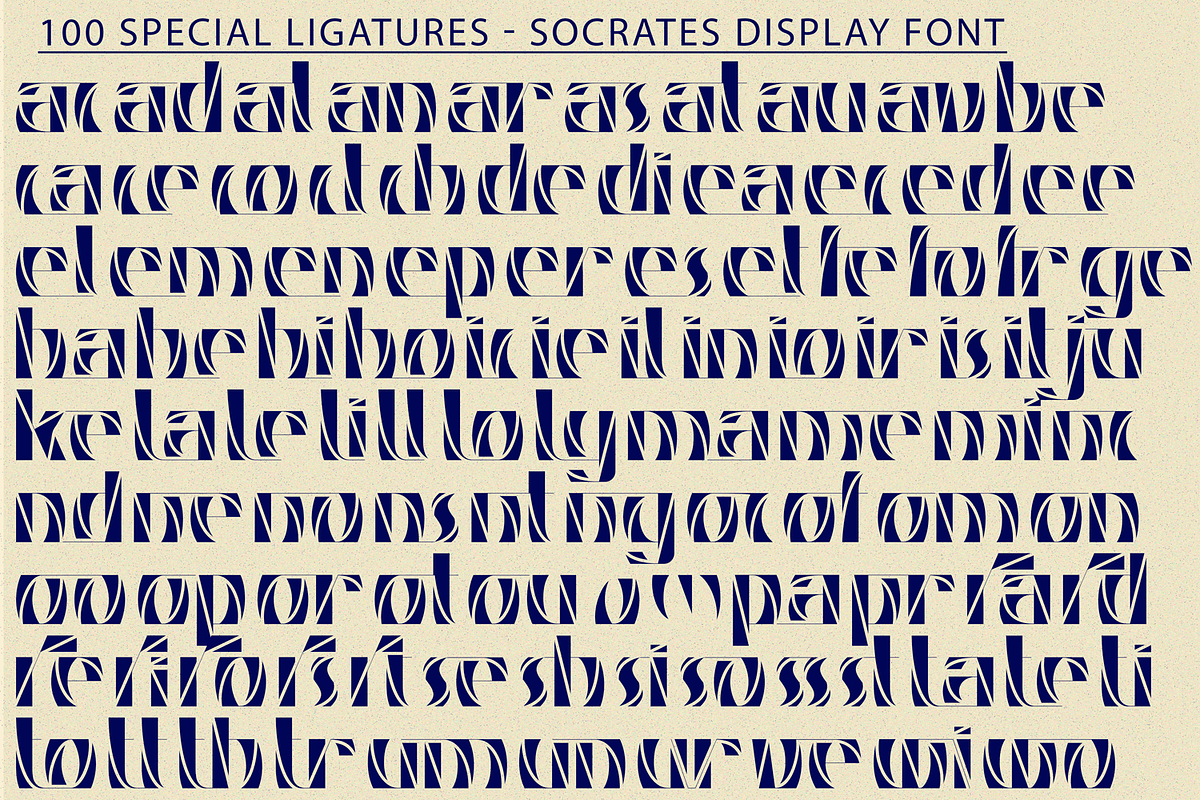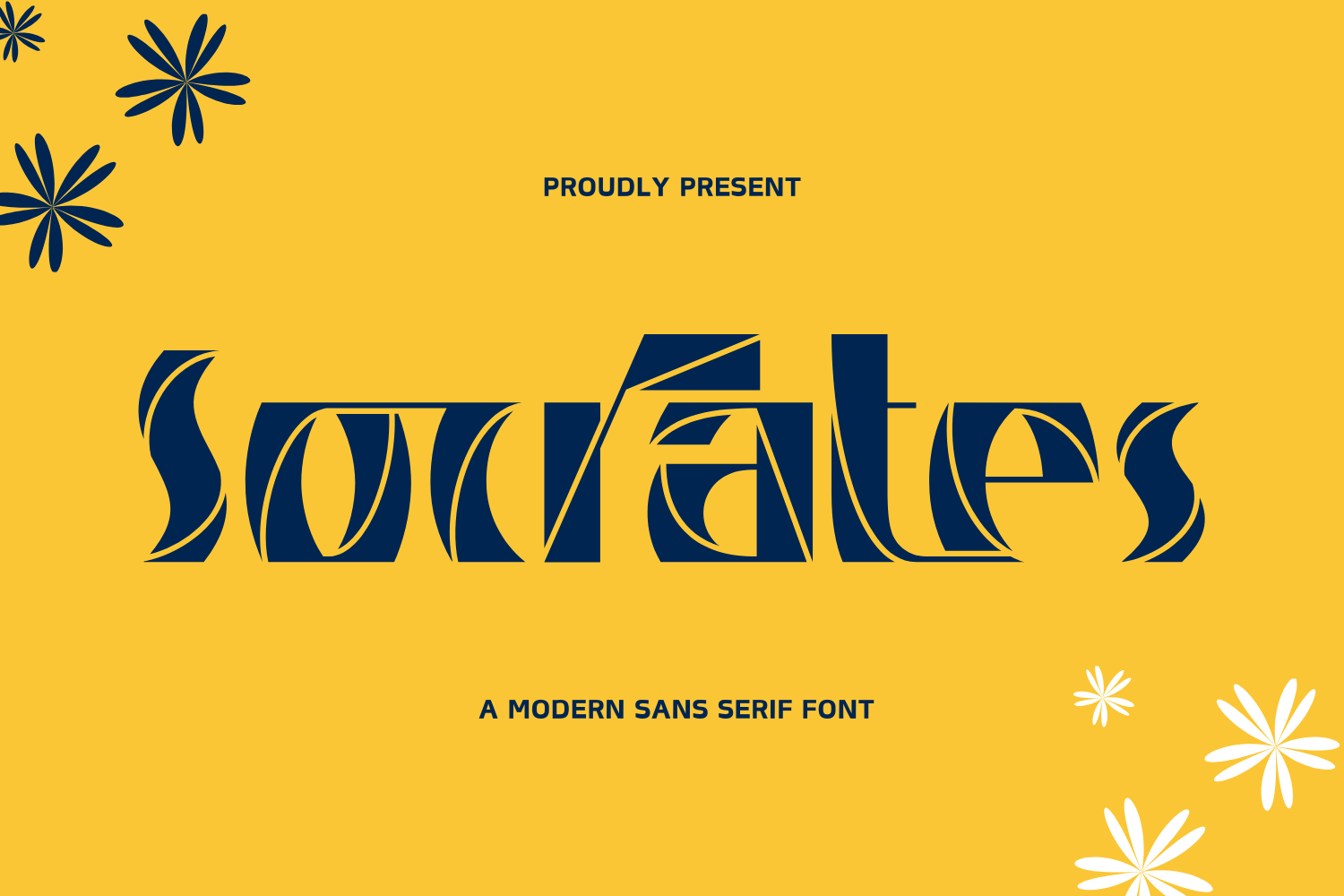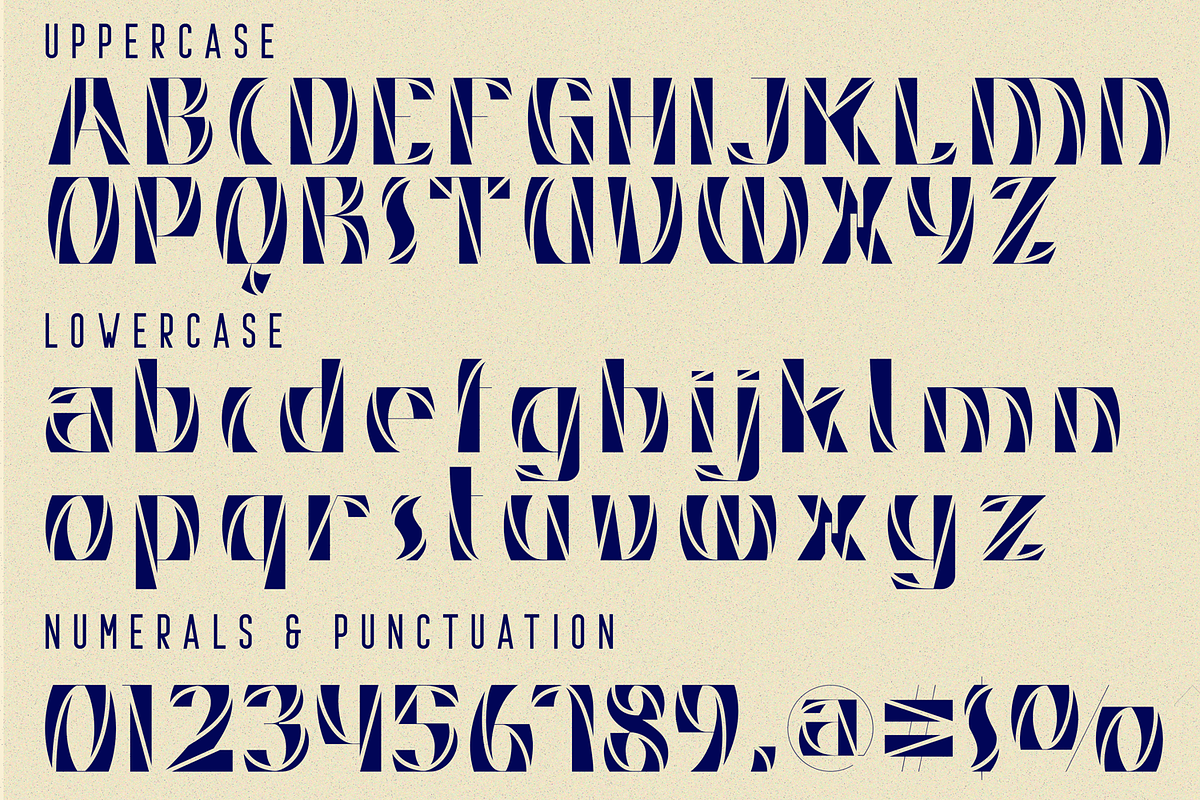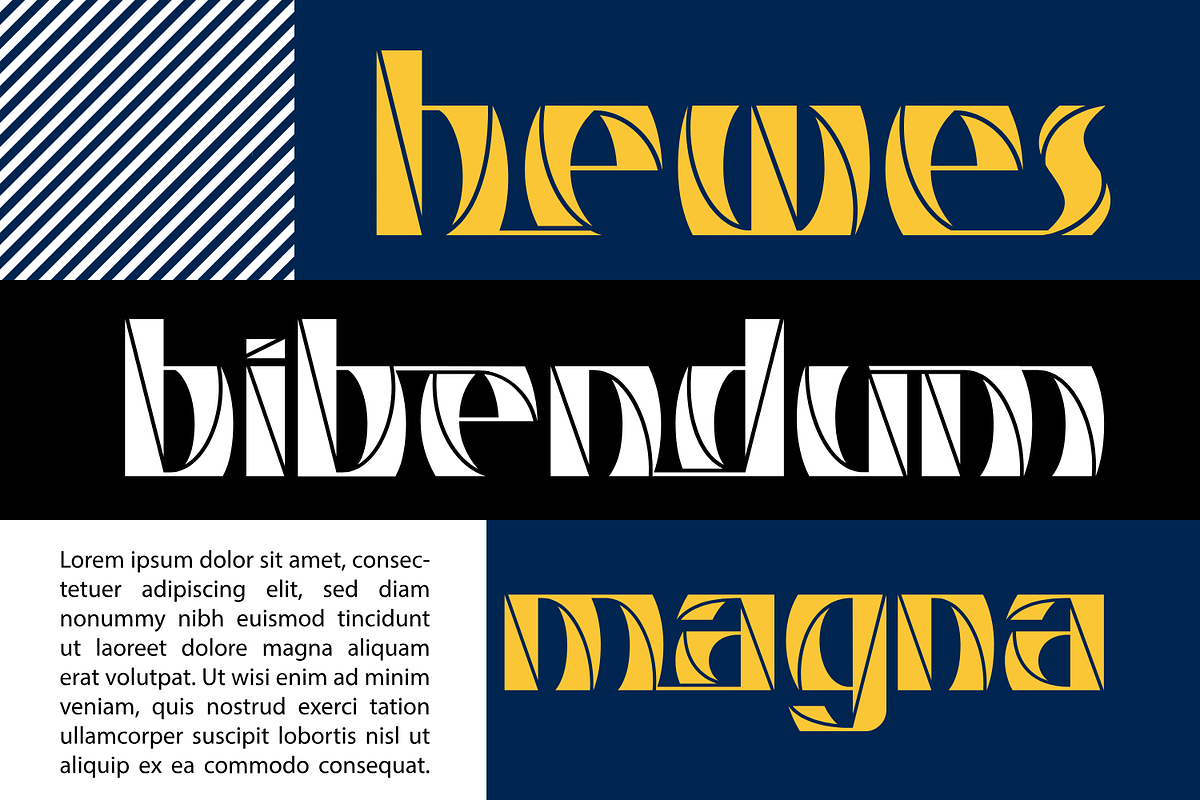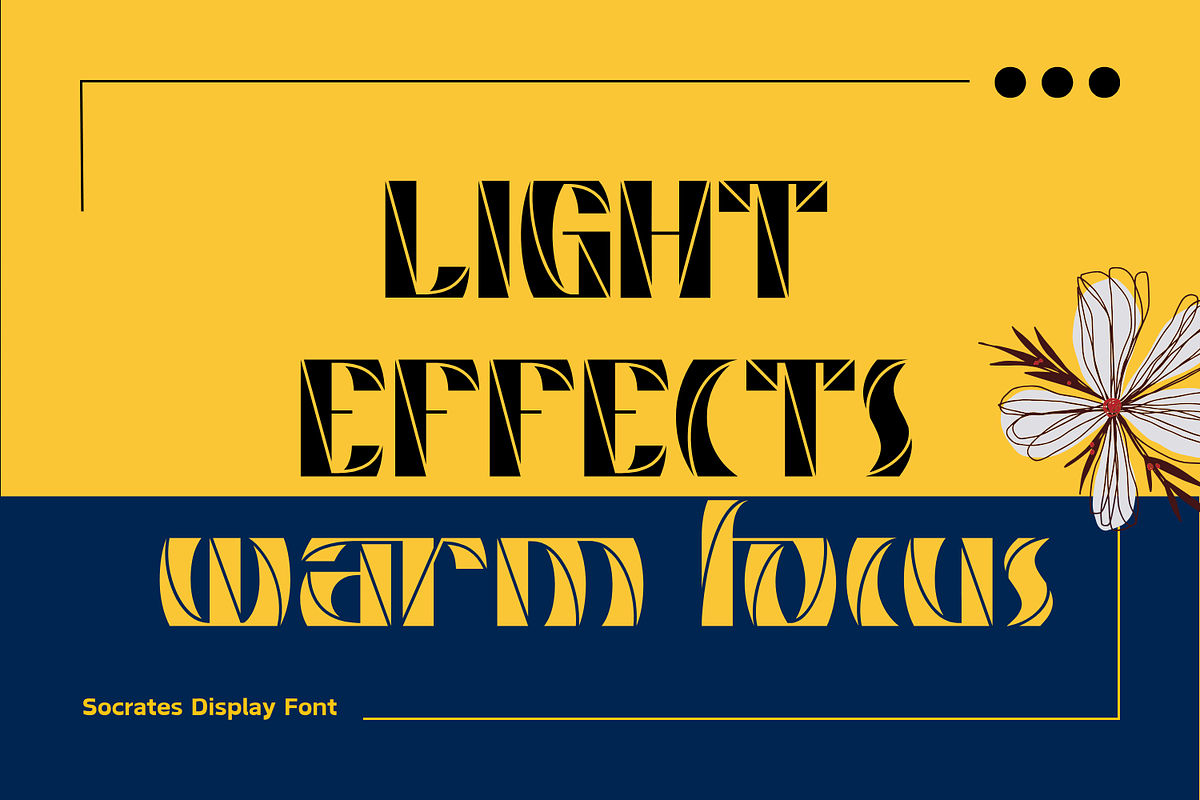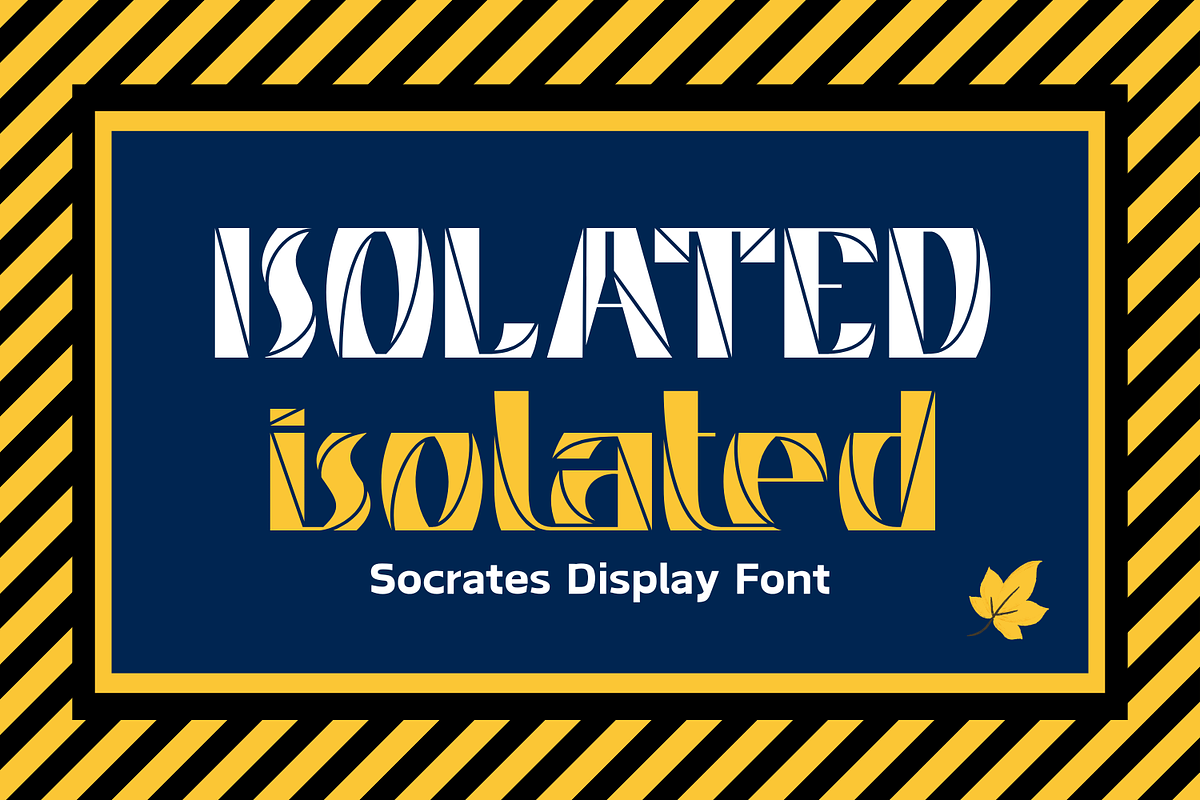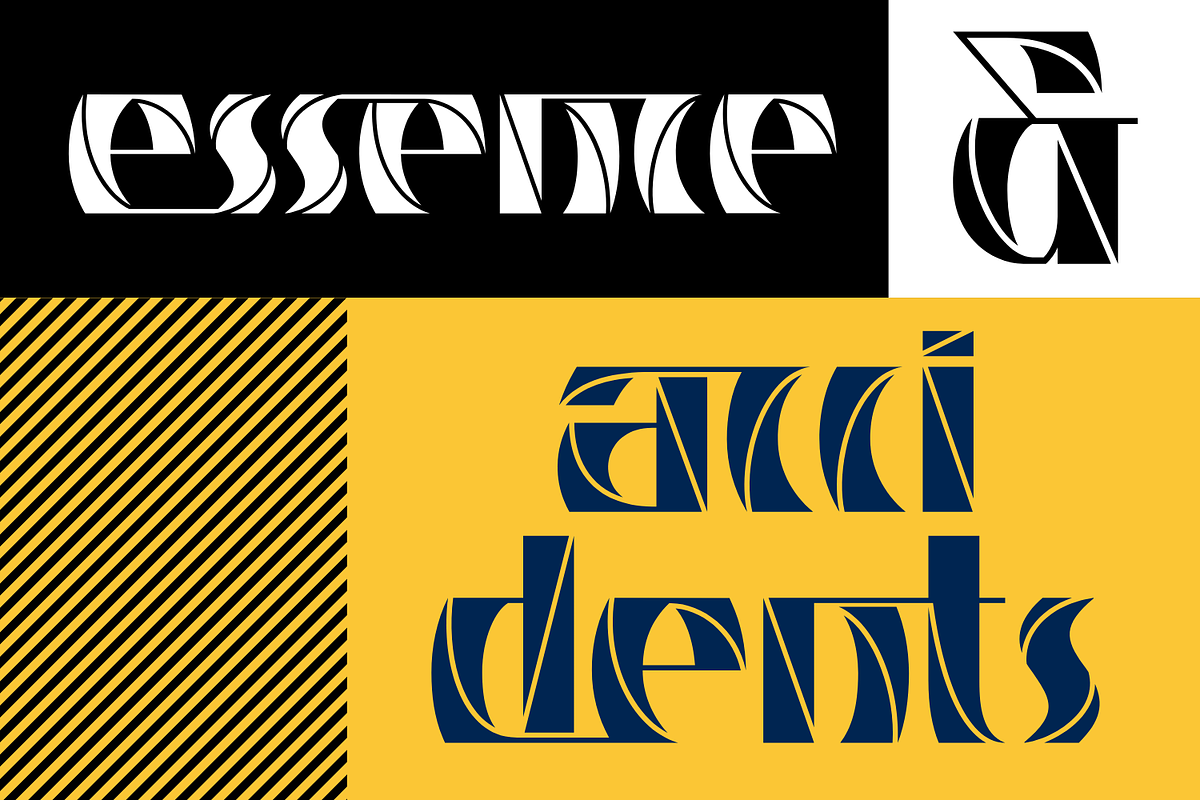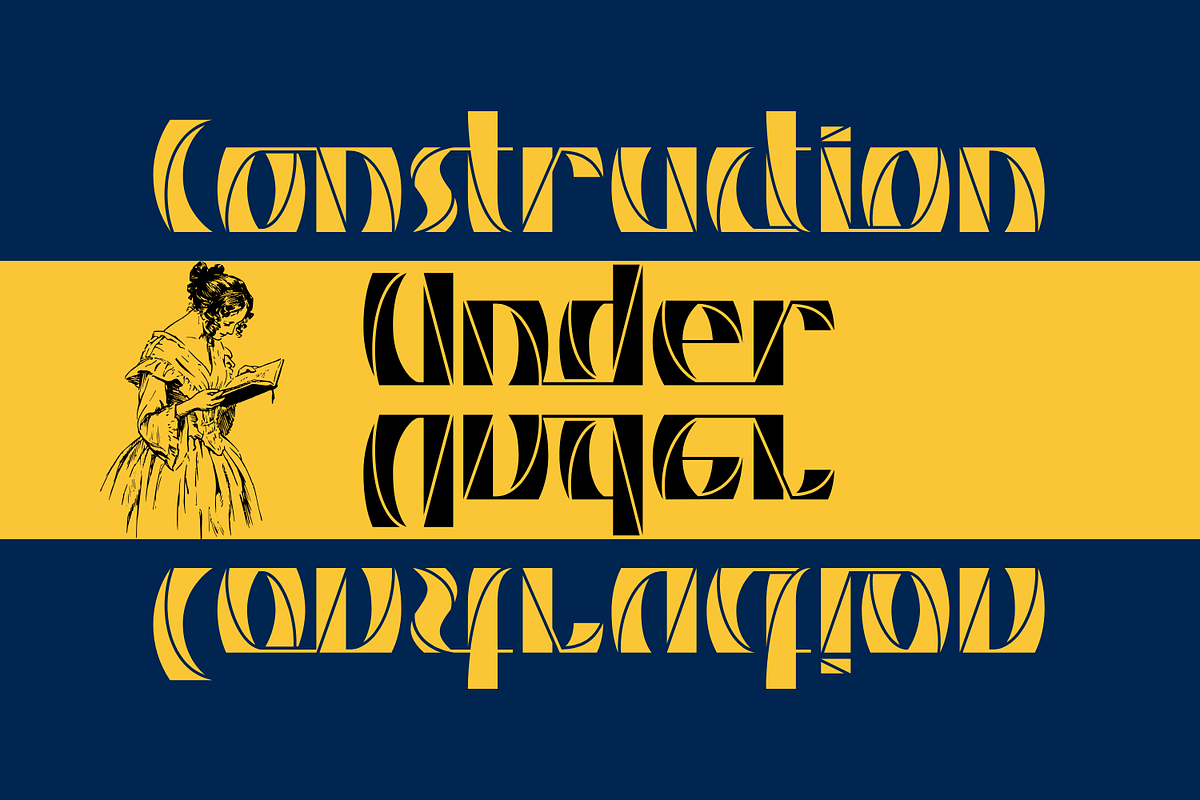
Socrates Display Font
Socrates Display Font is an elegant and sophisticated font inspired by the opulence and geometry of the Art Deco movement, with a modern twist. Its meticulously designed features make it perfect for adding a sense of timeless luxury and bold creativity to any design project. Its sleek lines and geometric style make it perfect for technology branding, sci-fi themes, user interfaces, and creative visuals.
Socrates Display was built with OpenType features and includes 100 ligatures, alternate, numbers, punctuation, and it also supports other languages.
ac ad al an ar as at au av be ca ce ch co ct de di ea ec ed ee el em en ep er es et fe fo fr ge ha he hi ho ie ic il in io ir is it ju ke la le li ll lo ly ma me mi nc nd ne ng no nt ns oc of om on oo op or ot ou ow pa pr ra rd re ri ro rs rt se sh si so ss st ta te th ti to tr tt um un ur ve wi wo